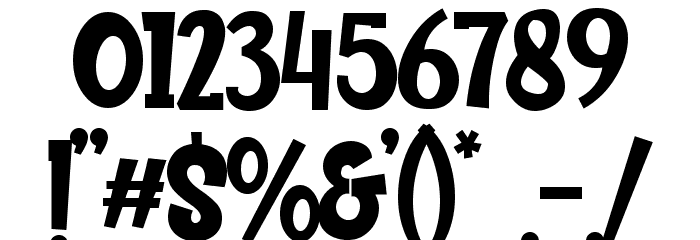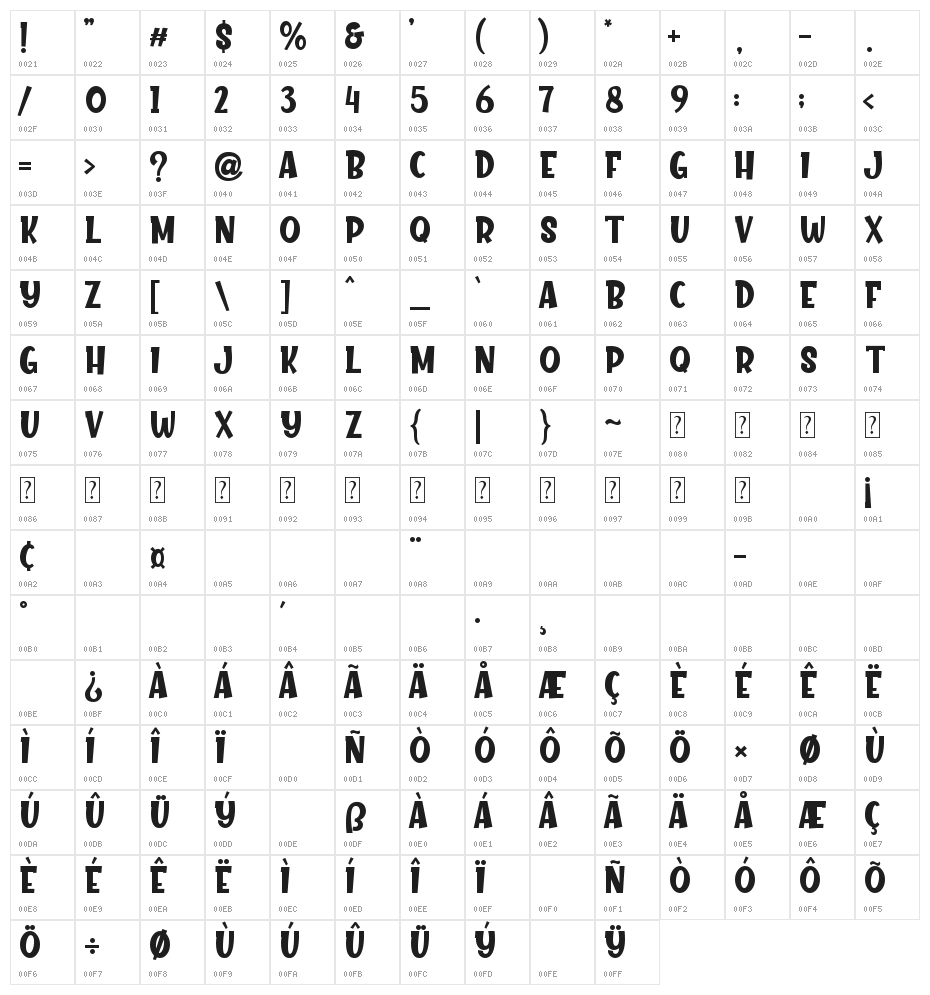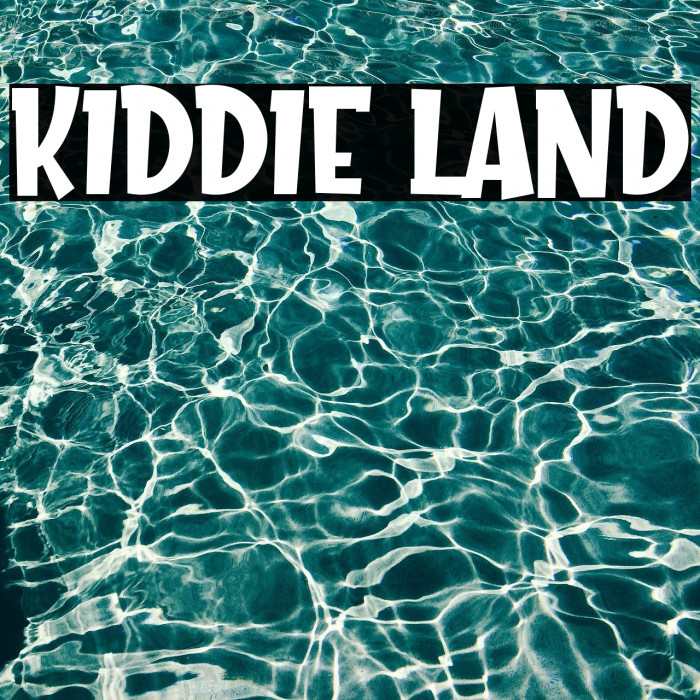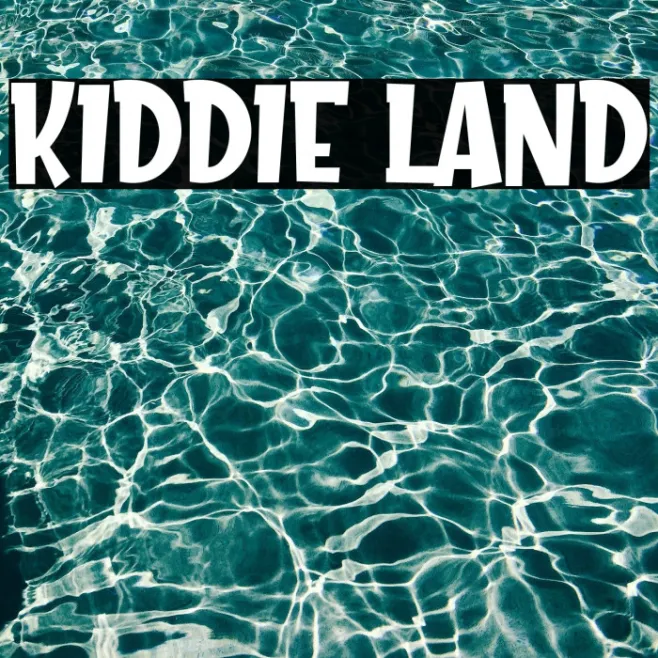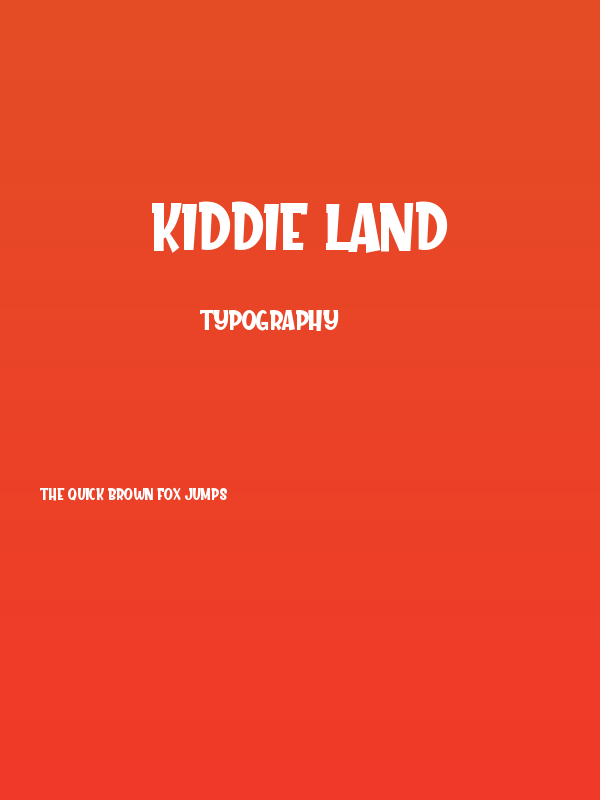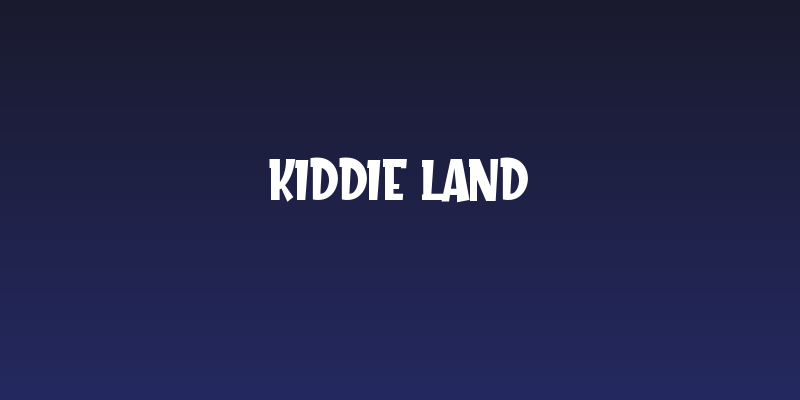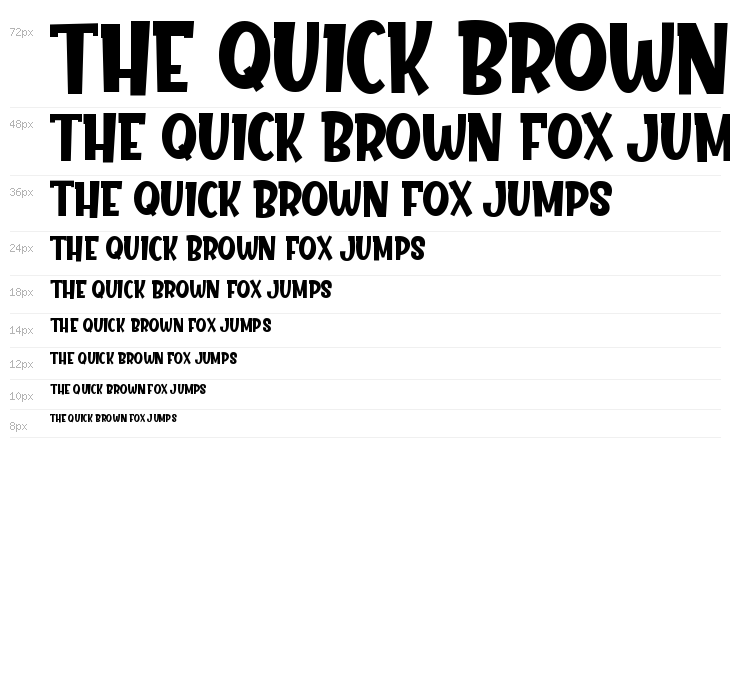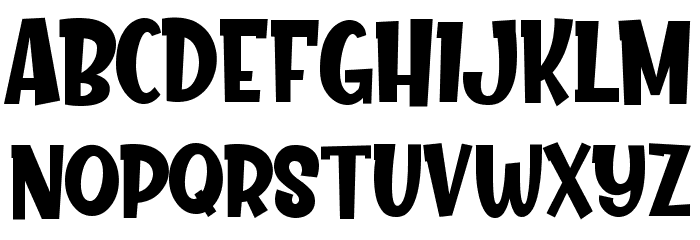
Kiddie Land Font
Kiddie Land Description
This playful and bold font features a whimsical design with exaggerated curves and a slightly uneven baseline, giving it a lively and energetic feel. The characters are thick and rounded, with a hand-drawn appearance that adds a touch of fun and creativity. The uppercase and lowercase letters maintain a consistent style, while the numerals and special characters complement the overall playful aesthetic. This font is perfect for projects that require a youthful and vibrant touch, such as children's books, playful branding, or creative posters.
| Proposed Projects | Ideal for children's books, playful branding, creative posters, and party invitations. |